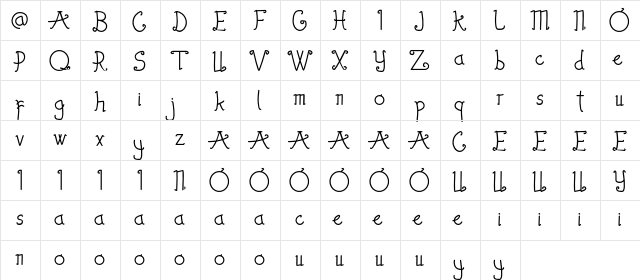
The Wambires Demo Regular
Design Context for The Wambires Demo Typeface
The Wambires Demo is a composed and adaptable typeface that performs quietly and consistently across a wide range of design contexts.